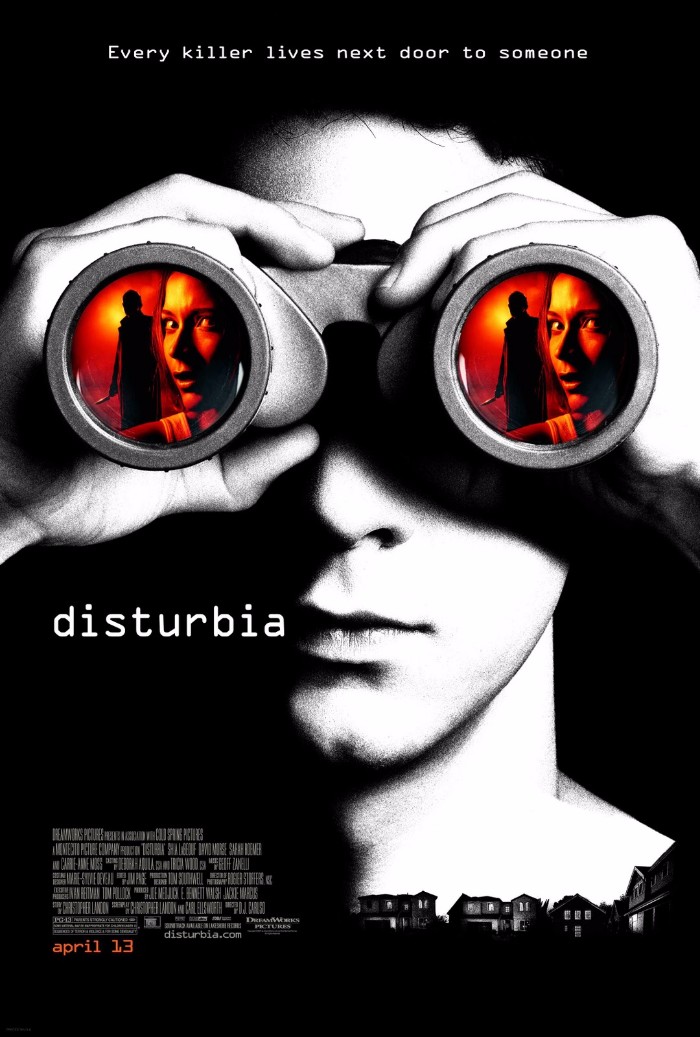
Disturbia Font
Fonts in UseDisturbia is a 2007 thriller movie directed by D.J. Caruso, starring Shia LaBeouf as a teenager who is placed under house arrest and becomes suspicious of his neighbor, leading to a dangerous and thrilling investigation.
The movie poster's title font is OCR A, a mono-spaced sans serif designed for early computer optical character recognition. Its simple and thick strokes were chosen to make it recognizable not just by computers but also by humans.